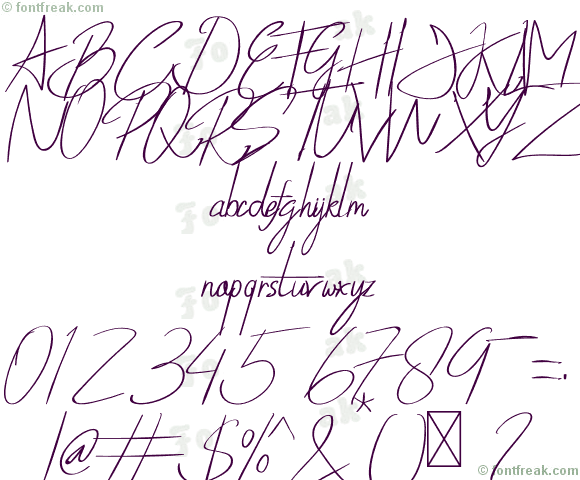
SynthiaRegular
SynthiaRegular by Rantau Type is an elegant script font that effortlessly blends sophistication with modern flair. This freeware font, released in 2019, showcases a unique design characterized by its fluid, cursive strokes and graceful curves. The stroke weight is consistent yet dynamic, providing a balanced contrast that enhances legibility while maintaining a stylish appearance. The spacing between characters is thoughtfully designed, ensuring that each letter flows seamlessly into the next, which adds to its overall charm.
This font is particularly well-suited for a variety of creative applications. It shines in wedding invitations, where its delicate and romantic style can set the tone for a special day. Additionally, SynthiaRegular is an ideal choice for elegant restaurant menus, helping to convey a sense of sophistication and culinary artistry. Graphic designers will find it useful for branding projects, particularly for businesses looking to establish a refined image. It can also be used effectively in greeting cards and personalized stationery, allowing for a personal touch that captivates the recipient.
What sets SynthiaRegular apart is its ability to marry readability with an artistic flair, making it a standout choice for both formal and casual designs. Whether used in print or digital formats, this font adds a touch of elegance that captures attention and communicates a sense of style. With its free license, SynthiaRegular is an accessible choice for all your creative needs.